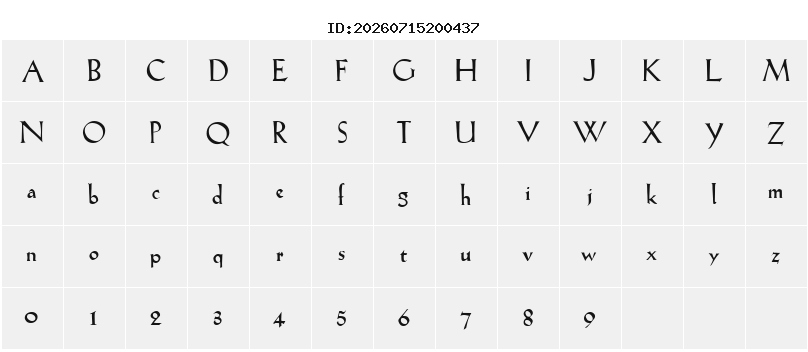
About Auvergne.ttf
Auvergne.ttf is a modern, elegant sans-serif font designed for ultimate readability and visual harmony. Perfect for branding, headlines, web design, and print materials.